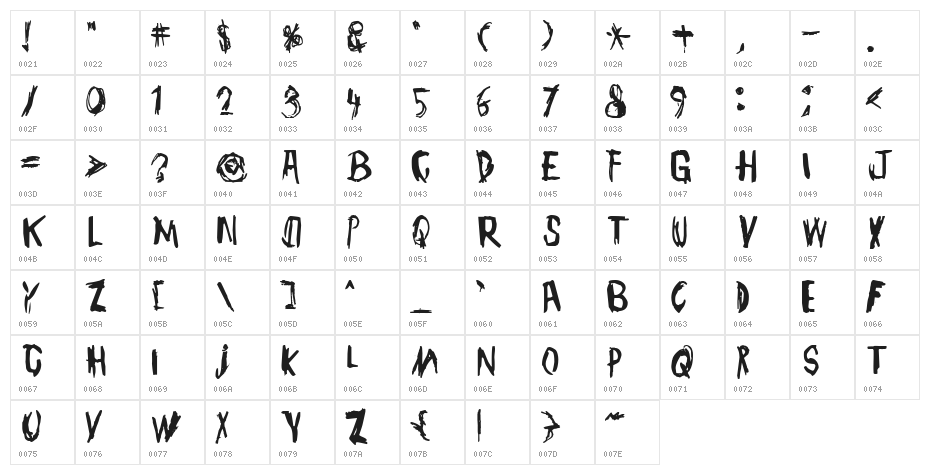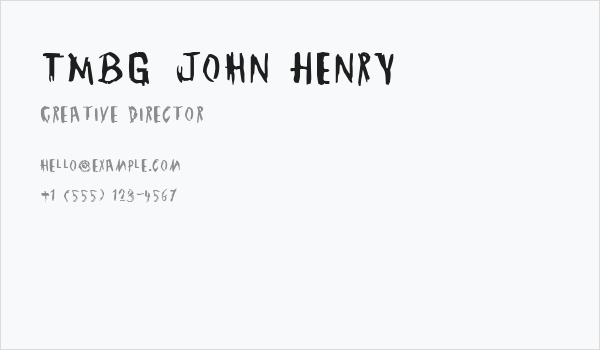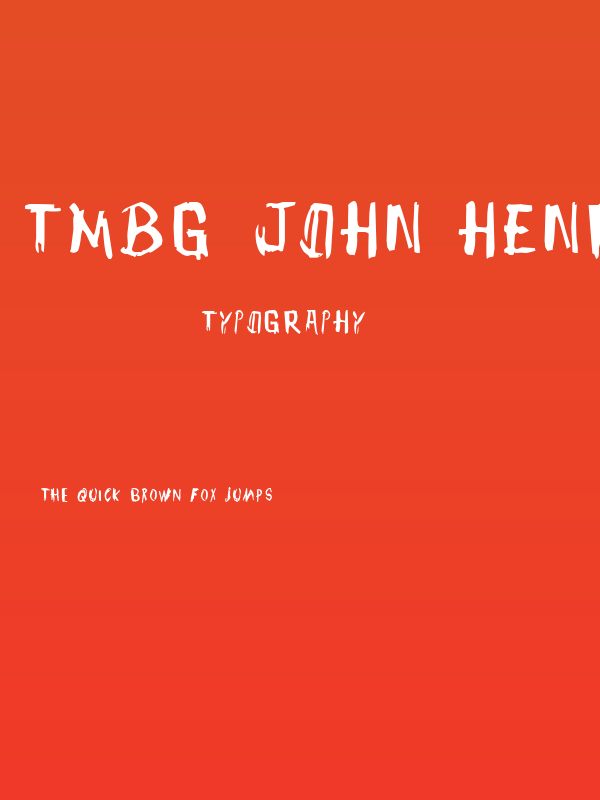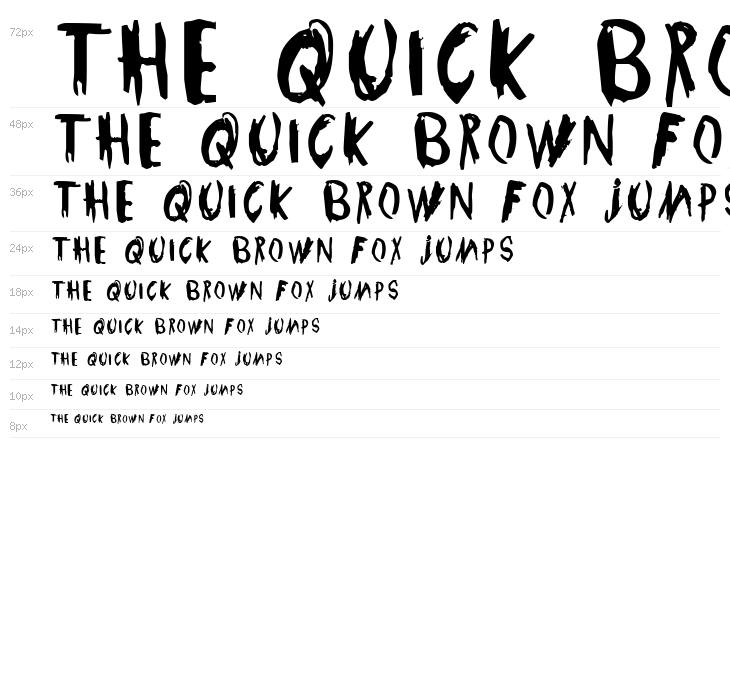
TMBG John Henry Font
TMBG John Henry Description
This font features a bold, distressed style with a hand-drawn appearance. Each character is uniquely crafted, giving it a raw and edgy feel. The strokes are uneven and jagged, creating a sense of movement and energy. The uppercase and lowercase letters maintain a consistent style, while the numbers and special characters add to its eclectic nature. This font is perfect for projects that require a grunge or punk aesthetic, offering a rebellious and artistic vibe.
Proposed ProjectsIdeal for album covers, posters, streetwear branding, and edgy graphic designs.